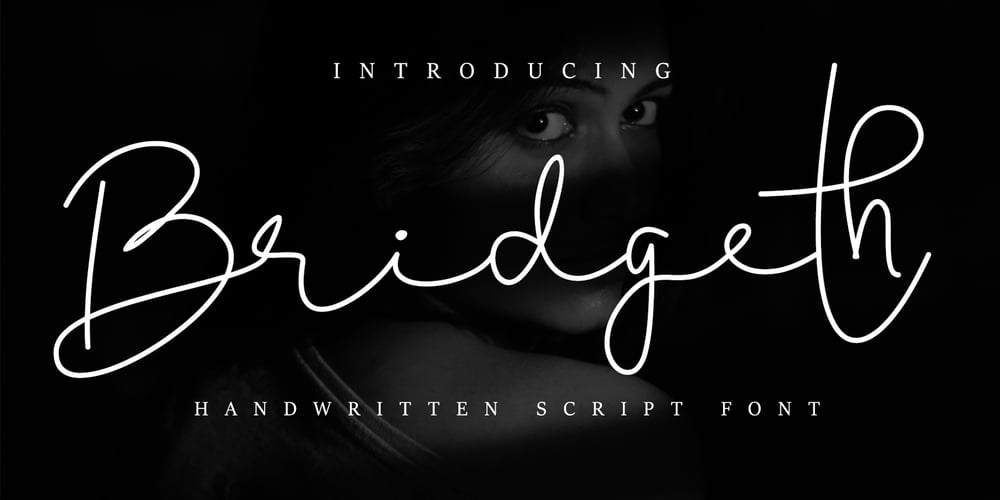
Bridgeth Font Family was designed by Nasruni Fajarita and published by Tiny Hand Letter. Bridgeth contains 1 styles and family package options. Bridgeth is a handwritten script font, with an elegant and beautiful look. It looks stunning on wedding invitations, thank you cards, quotes, greeting cards, logos, business cards and every other design which needs a handwritten touch.This font is PUA encoded which means you can access all of the glyphs and swashes with ease!